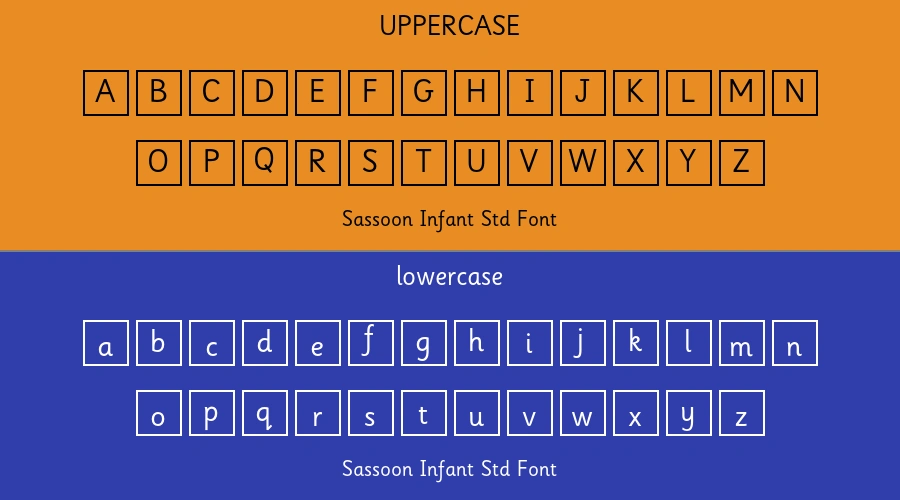
About Sassoon Infant Std Font
Sassoon Infant Std Font stands out for its distinctive combination of swash extensions and visual rhythm. Ideal for web design, it provides the durability and cultural significance that professional projects demand. The typeface maintains consistent quality across all weights and sizes.
Key features include refined elegant proportions and practical technical characters, enhancing typographic expression. In footnotes applications, Sassoon Infant Std Font demonstrates exceptional table alignment. The tail length and contemporary relevance contribute to its distinctive character and professional appeal.